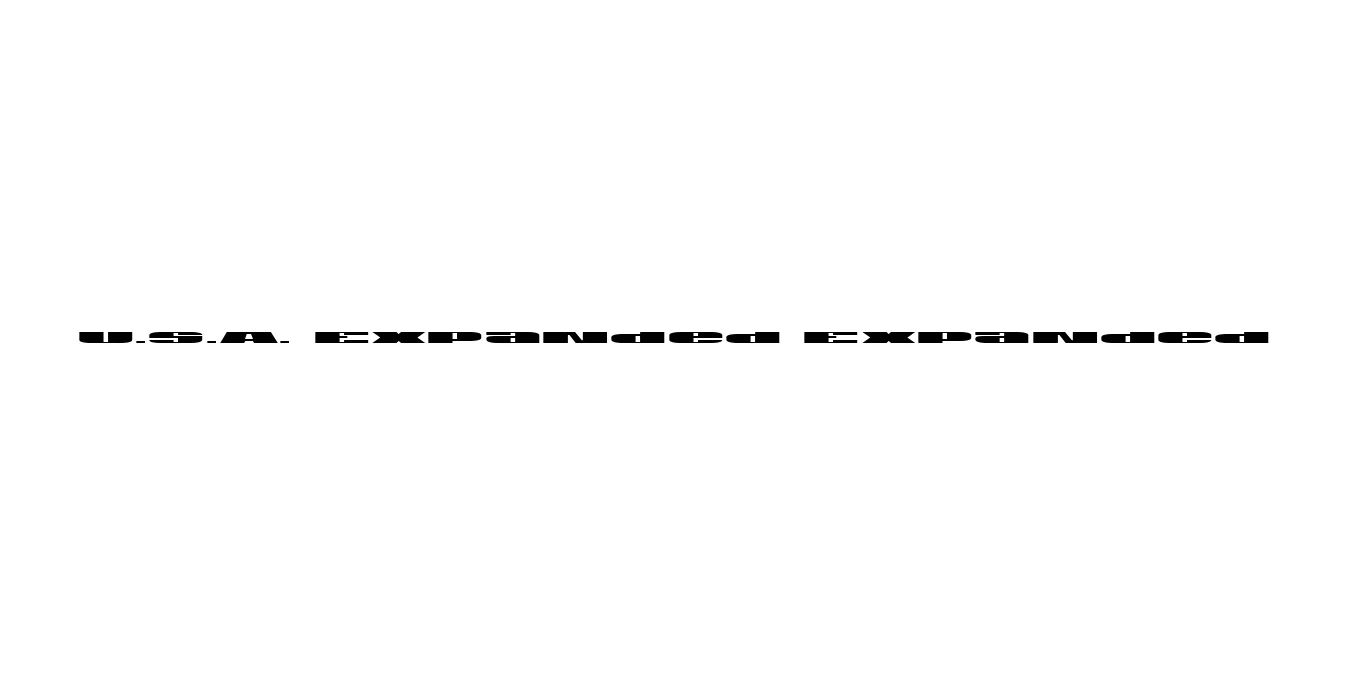
U.S.A. Expanded Expanded
Designed by Bitstream
U.S.A. Expanded is a robust sans-serif typeface that emphasizes horizontal scale and geometric precision. Heavily influenced by the design principles of Eurostile and Microgramma, this font family was developed to provide a powerful, industrial look that dominates the visual field. Its wide proportions and squared-off curves make it a staple for projects requiring a sense of technological advancement and structural integrity.
As part of the broader U.S.A. font series, the 'Expanded Expanded' variant pushes the limits of width, making it perfect for cinematic titles, branding, and large-scale signage. While it maintains excellent legibility at large sizes, its primary strength lies in its ability to convey authority and modernity. It has become a popular choice for aerospace themes, automotive branding, and futuristic user interfaces across various digital platforms.
U.S.A. Expanded Best Uses
Ideal for movie posters and opening credits in science fiction or action genres.
Excellent for logos in the automotive, tech, or aerospace industries seeking a bold look.
High impact for large-scale outdoor displays and modern architectural lettering.